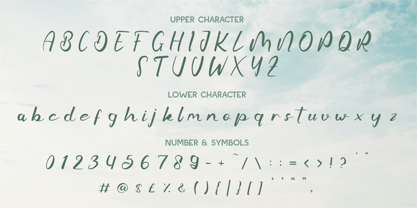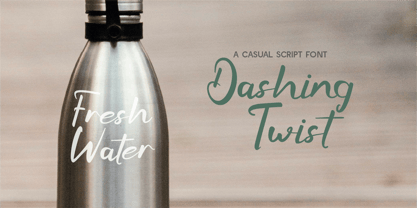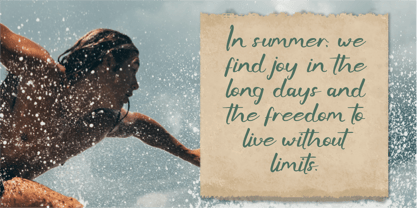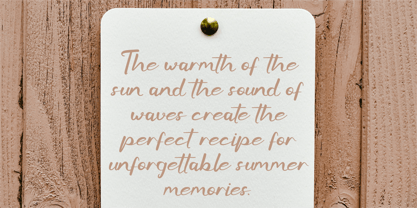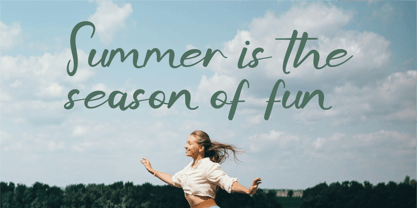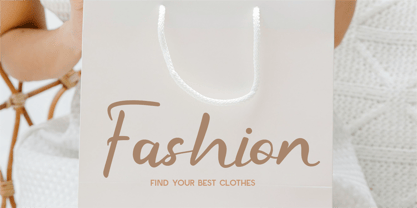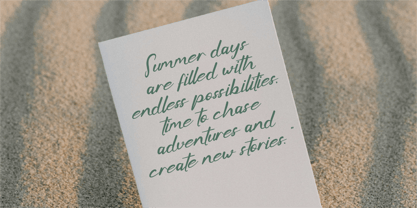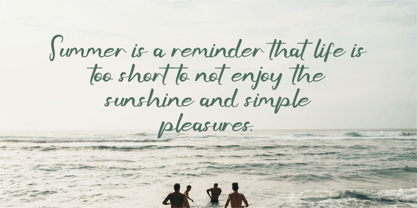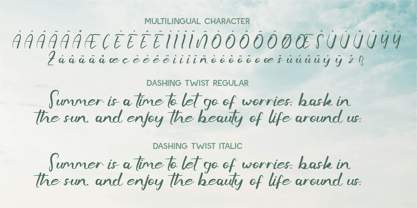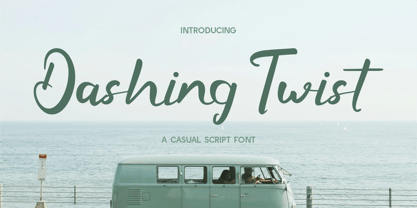
CF Dashing Twist
by Indotype
The CF Dashing Twist Font Family was designed by Gilang Mei Nugraha, Frederik Aristaputra and published by Indotype. CF Dashing Twist contains 2 styles and family package options. More about this family
Dashing Twist is a casual script font that perfectly embodies a relaxed yet stylish vibe. Its smooth and lively strokes bring energy and personality to your designs, making it an excellent choice for travel blogs, lifestyle branding, greeting cards, or social media content. With its approachable charm and carefree spirit, Dashing Twist adds a touch of whimsy and individuality to your creative projects. Whether you're aiming for a laid-back or cheerful aesthetic, this font delivers effortless versatility and warmth.
- Standard Character A-Z, a-z, 0-9, Punctuation & symbols
- Regular and Italic
Designers: Gilang Mei Nugraha, Frederik Aristaputra
Foundry: Indotype